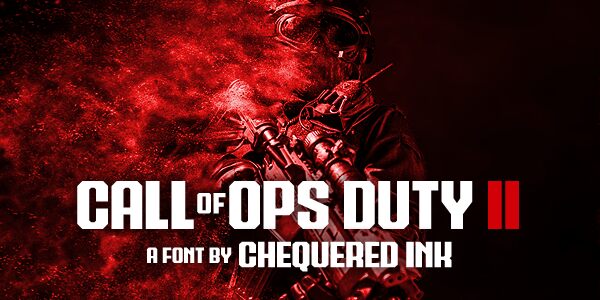
Call of Ops Duty II
Call of Ops Duty II, a creation by Chequered Ink, is a captivating display font that beautifully blends old school aesthetics with a military and gaming vibe. With its semi-light weight, this font brings the perfect balance of elegance and impact to your projects. Its charismatic style makes it an ideal choice for various applications.
Use it to design eye-catching posters for vintage-themed events or create game logos that exude an air of nostalgia. Let Call of Ops Duty II take center stage in your designs and make a lasting impression on your audience.